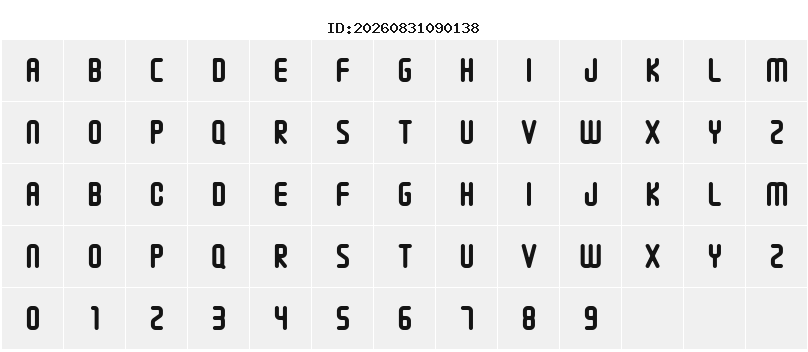
• Font Name: TekutekuR
• Font Style: Al
• Full Font Name: TekutekuR Al
About TekutekuR.ttf
TekutekuR.ttf is a modern, elegant sans-serif font designed for ultimate readability and visual harmony. Perfect for branding, headlines, web design, and print materials.